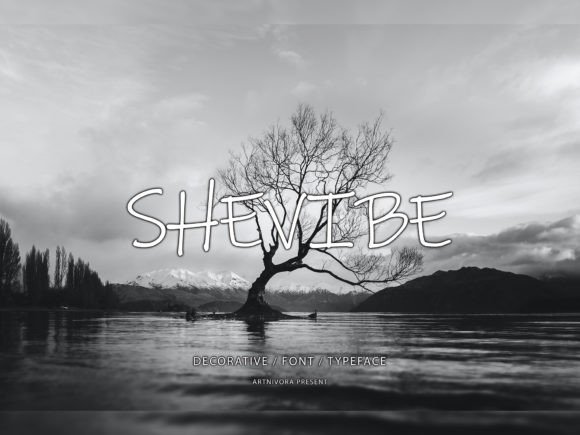
Introducing Shevibe, a font family that exudes creativity and playfulness, a whimsical touch to your designs. Imagine your words dancing on the page, filled with energy, captivating your audience with its youthful spirit. This font is a masterpiece crafted by artnivora.std, who poured passion and imagination into each curve and stroke. With Shevibe, your designs will radiate a sense of uniqueness, leaving an unforgettable impression on all who encounter them.
Unleash your inner artist and explore the limitless possibilities of Shevibe. Whether you're a seasoned designer or just starting, this font will elevate your projects to new heights. Its versatility is truly remarkable, making it suitable for a wide range of creative endeavors. From professional-looking designs such as logos, labels, and business cards to casual designs like posters, flyers, and social media posts, Shevibe adapts effortlessly, adding a touch of magic to every project.
With Shevibe, you'll have the power to craft designs that resonate with your audience, leaving a lasting impact. Its charm and elegance will captivate their attention, making your messages unforgettable. Whether you're creating branding designs or designing special occasions cards, Shevibe will infuse your projects with a heartfelt touch that's sure to leave a lasting impression.